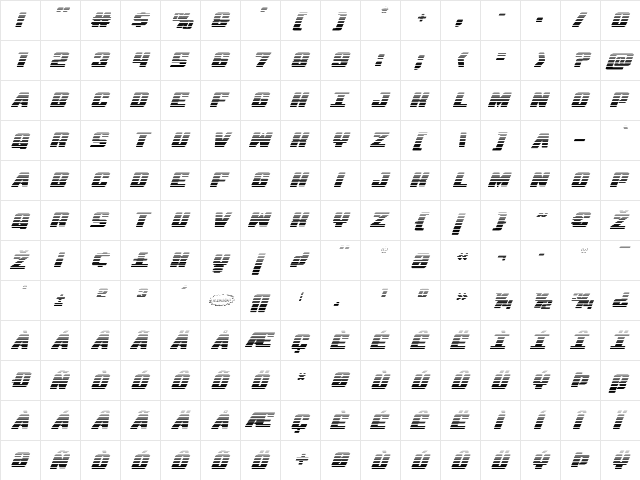
Virgin Hybrid Scanlines Regular
Design Context for Virgin Hybrid Scanlines Typeface
Virgin Hybrid Scanlines is a composed and adaptable typeface that performs quietly and consistently across a wide range of design contexts.
Pro Tip: Use Virgin Hybrid Scanlines in both headline and body roles to test its range before committing to a single application.